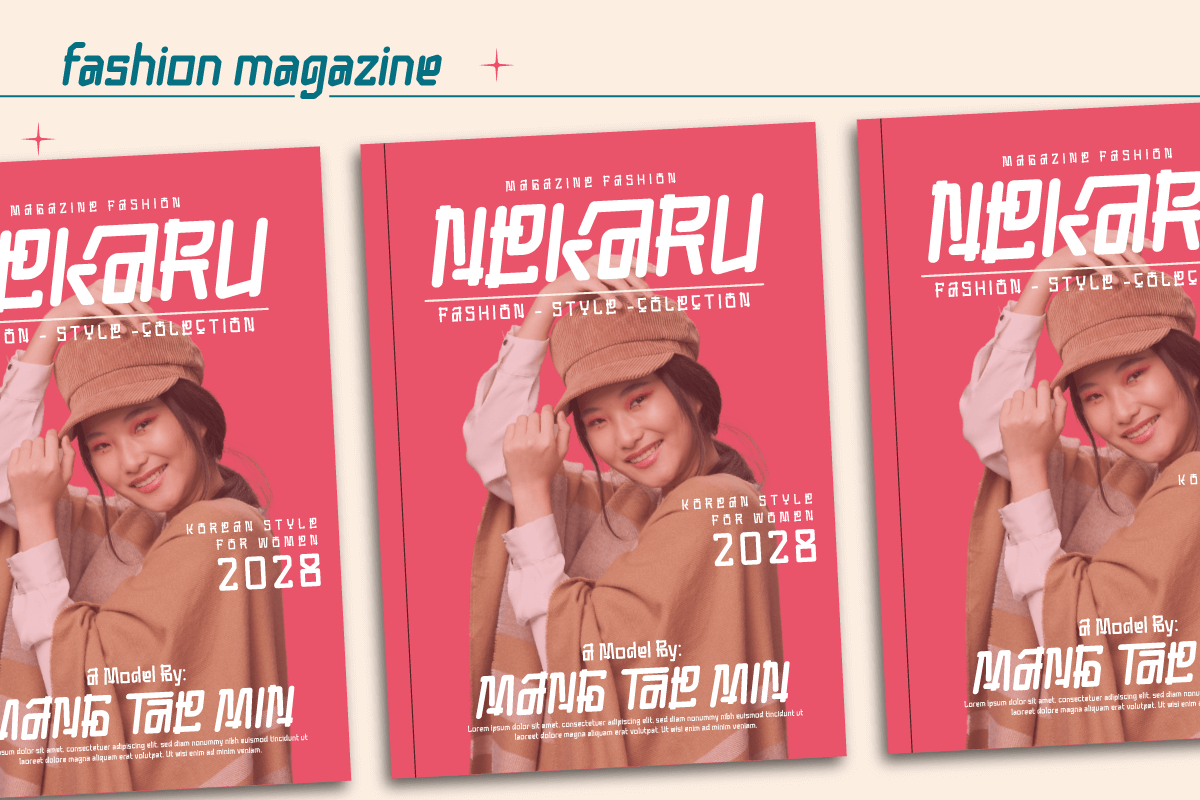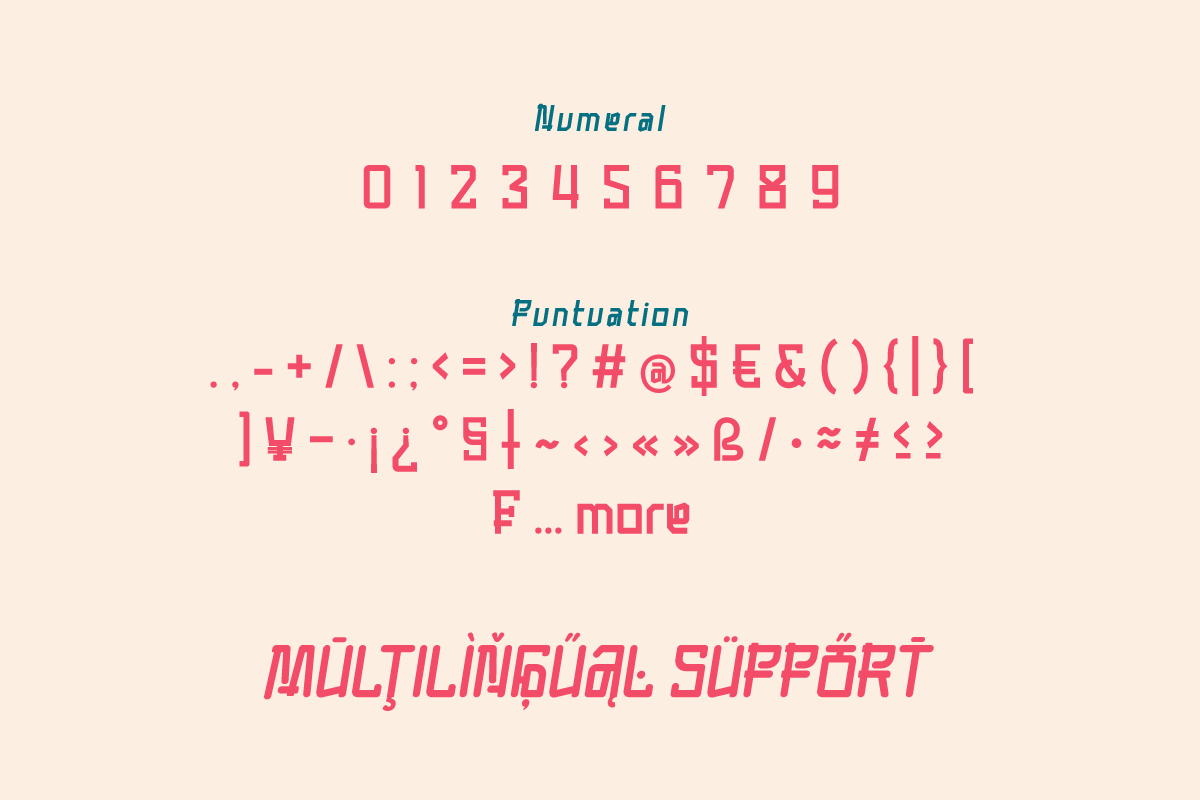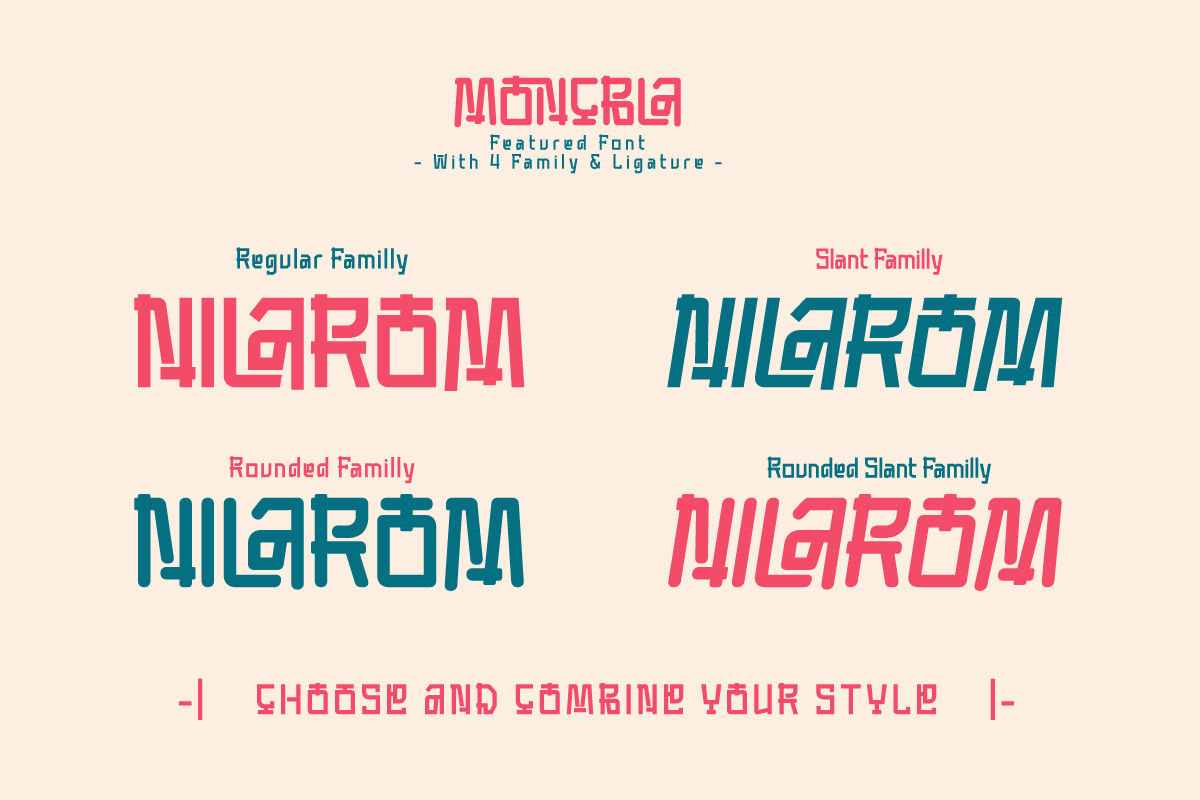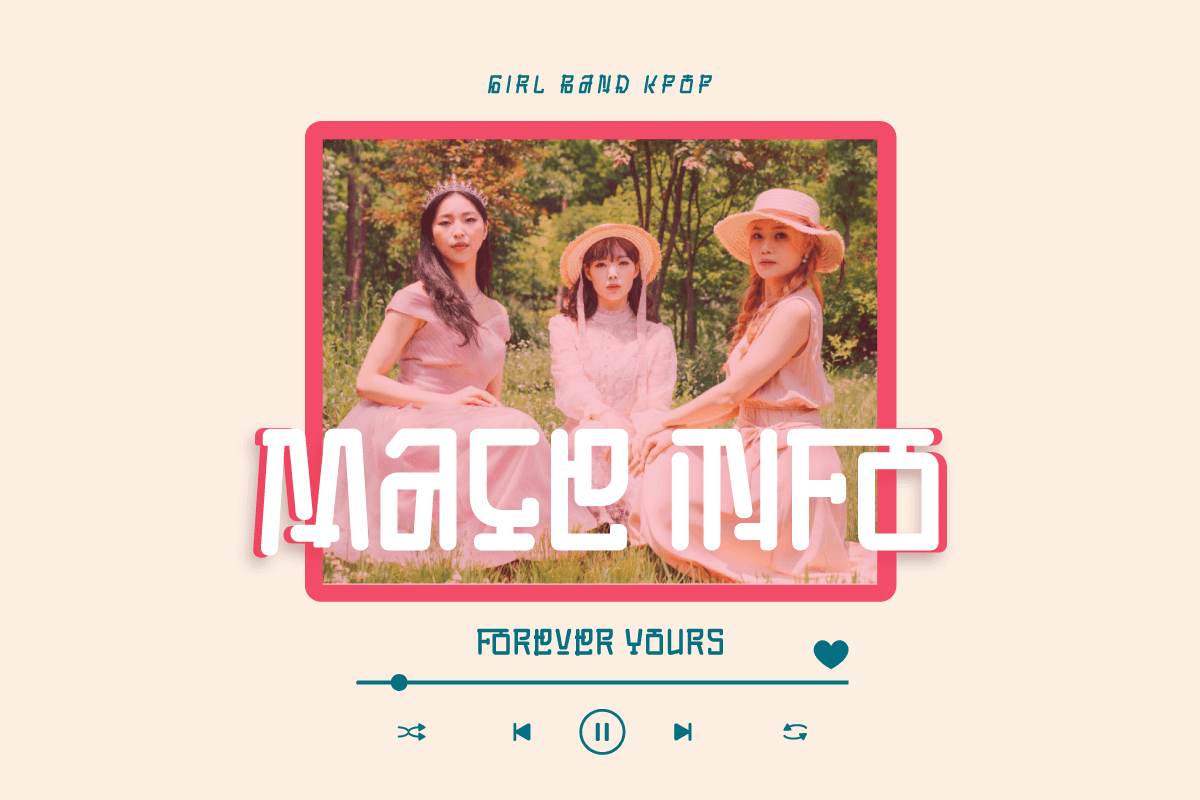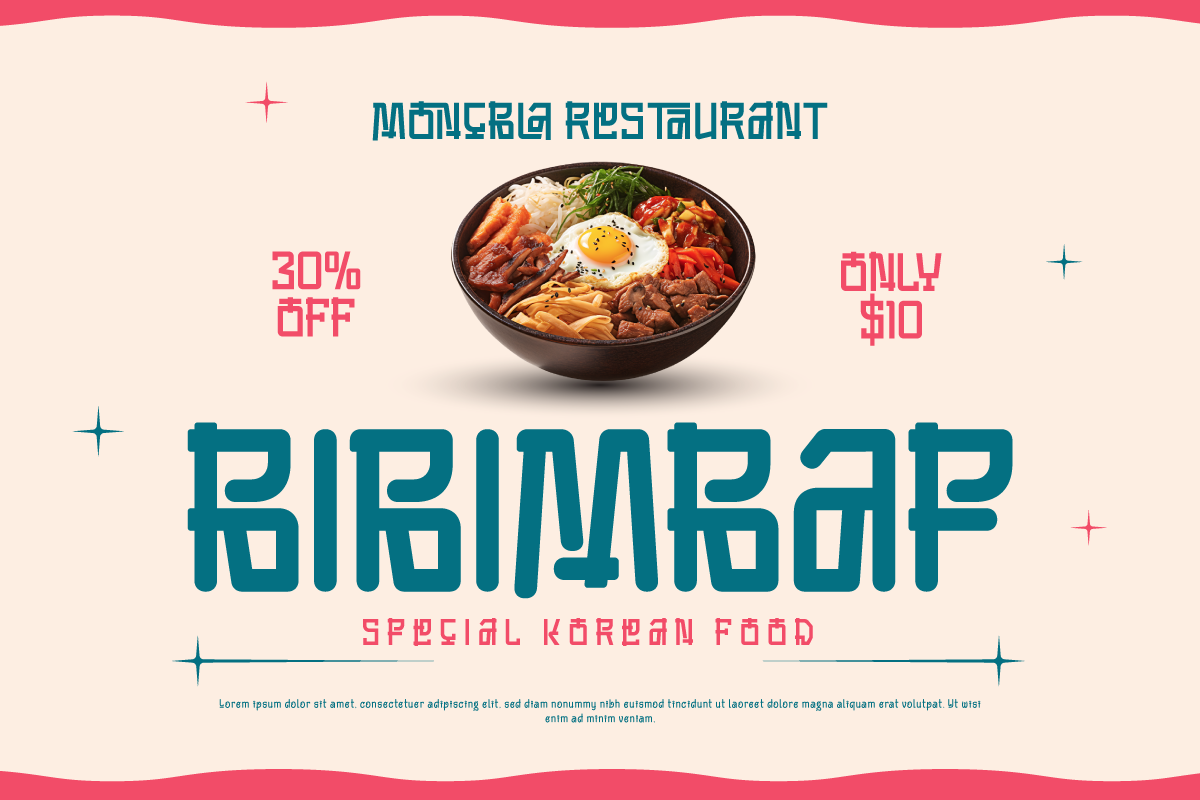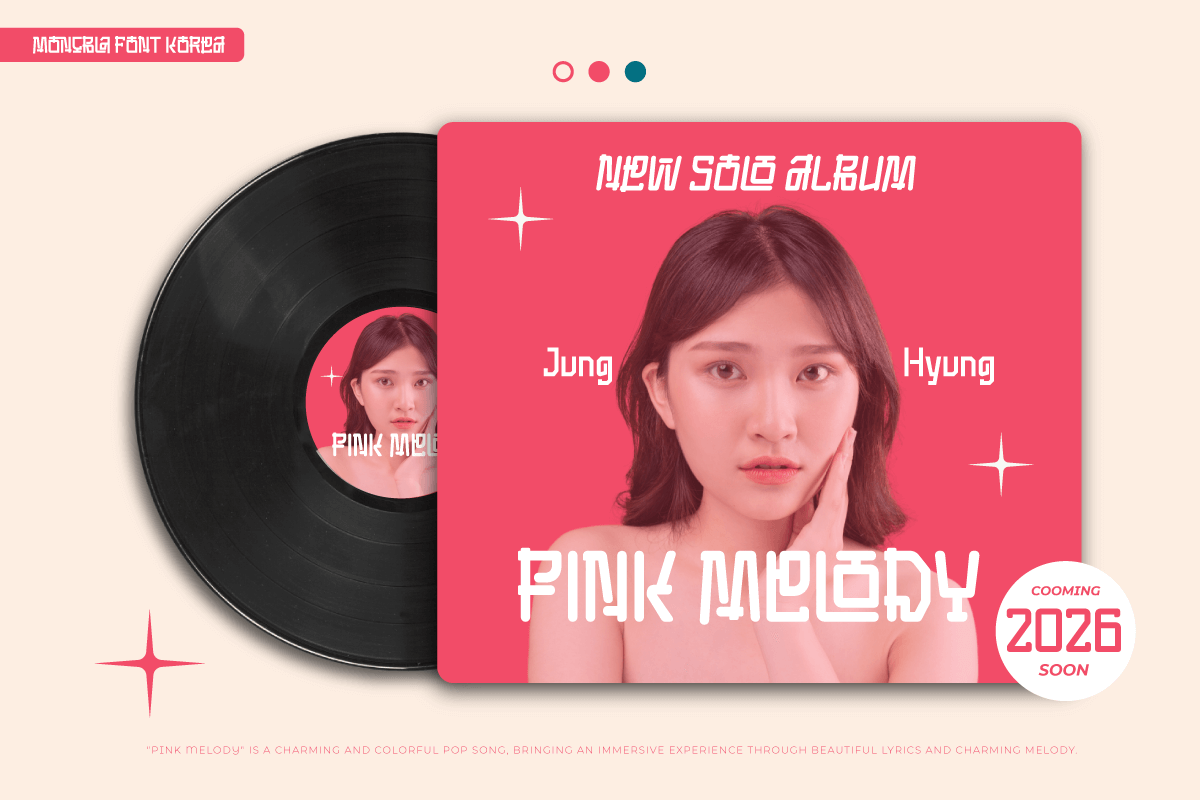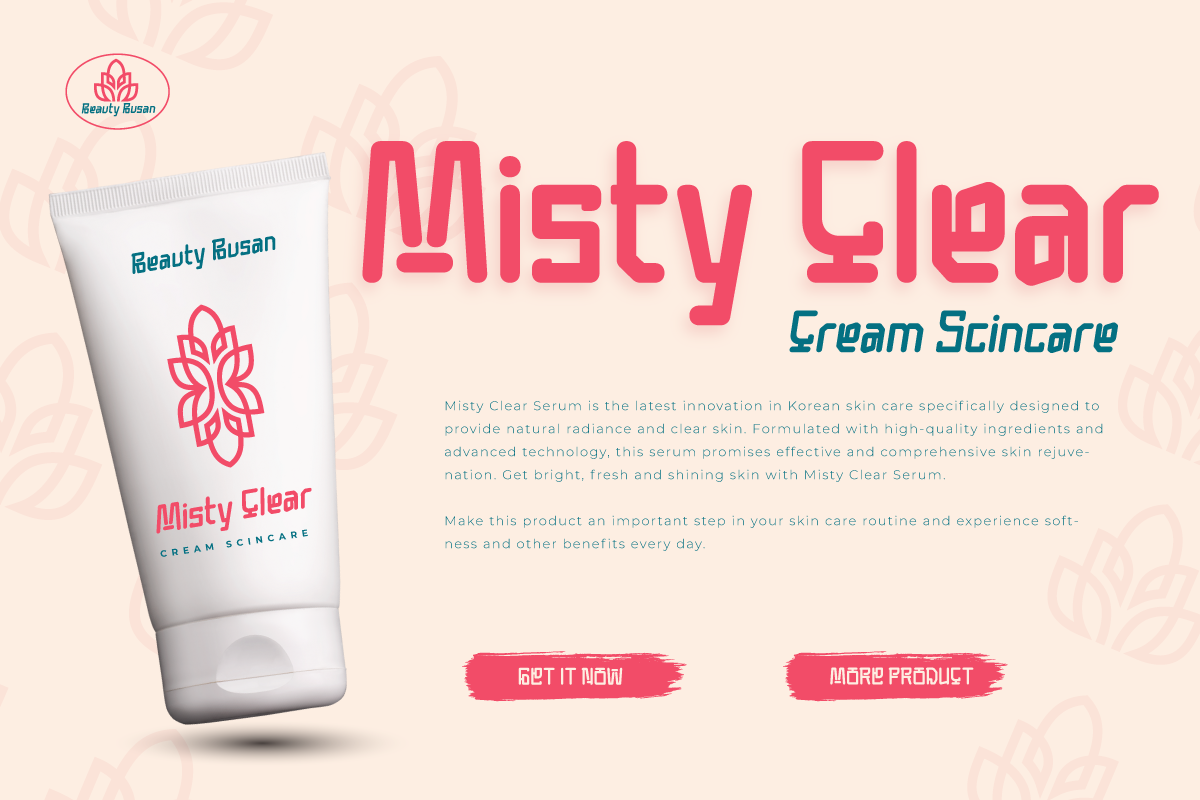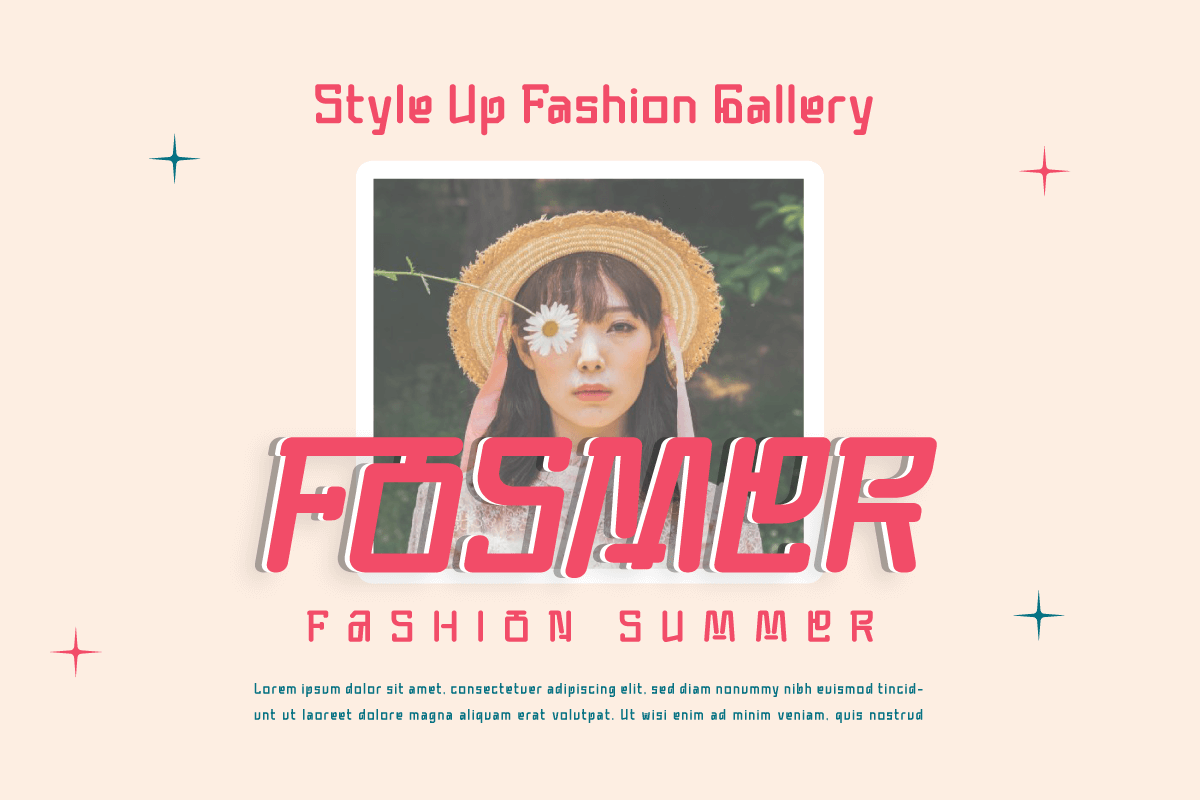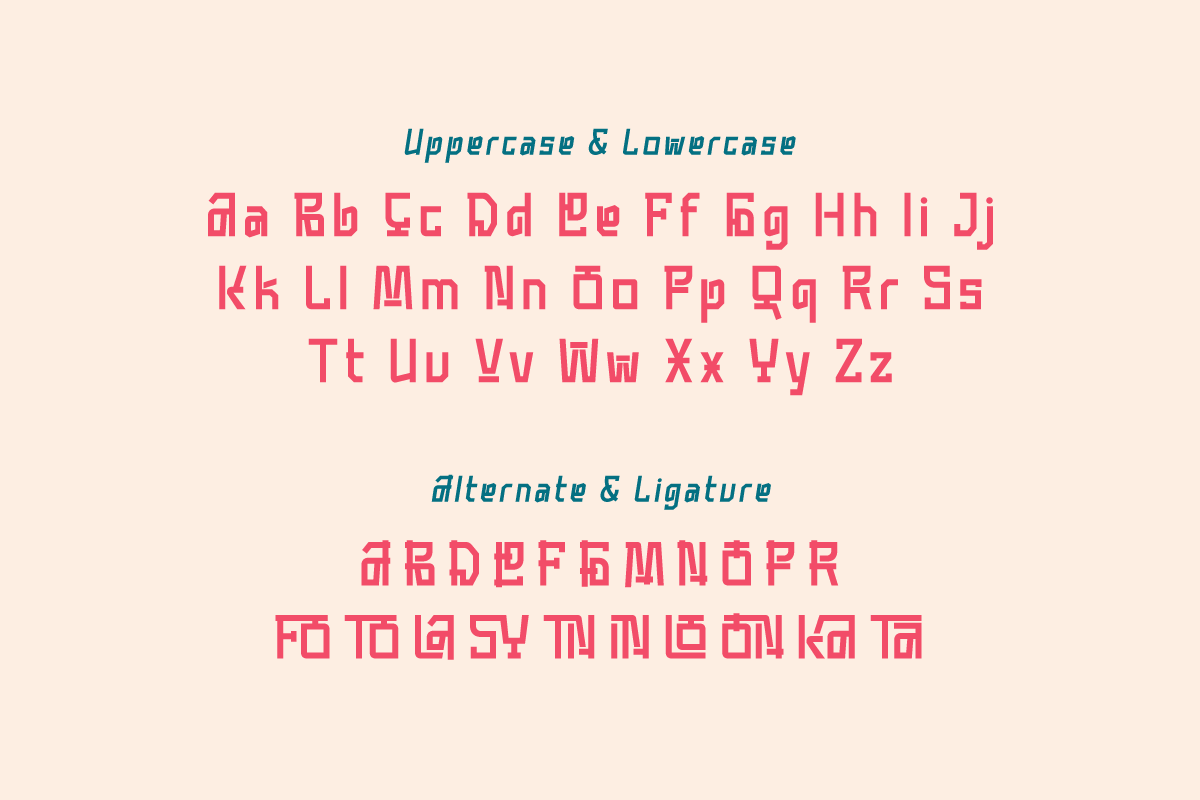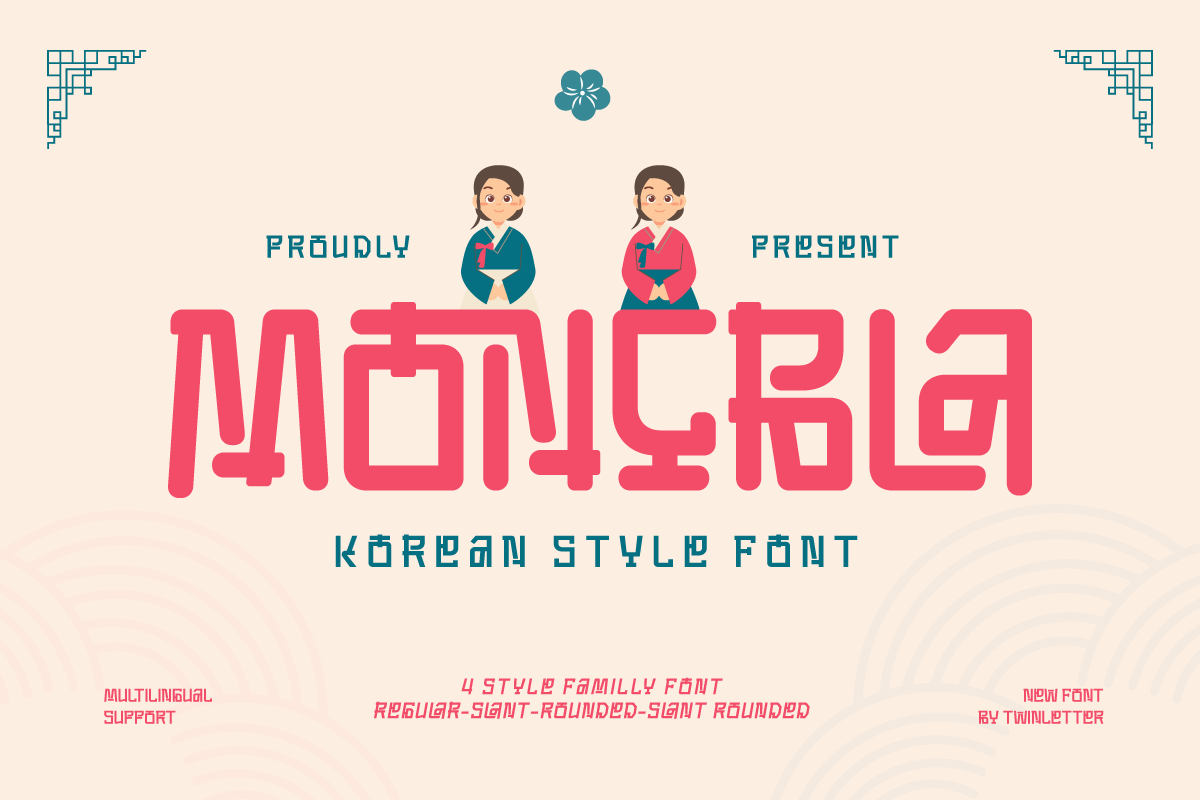
Moncbla - Korean Style Font
Bring Korean elegance into your designs with Moncbla, a font that adopts a charming Korean style with a distinctive Asian charm. With each letter expressing tenderness and beauty, Moncbla takes you on an enchanting journey through Korea's rich culture.
Moncbla is the perfect choice for branding projects, logo typography, and special events that want to embrace the beauty of Asia. The classic yet modern design gives each piece a unique and charming touch.
Let Moncbla take you on a journey through the wonders of Korean culture. With this font, bring dazzling beauty to your designs, making every project a representation of timeless beauty.